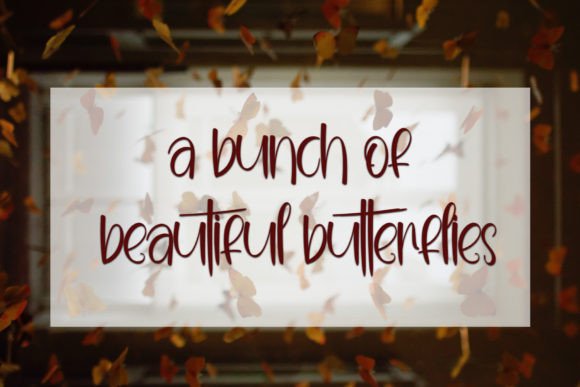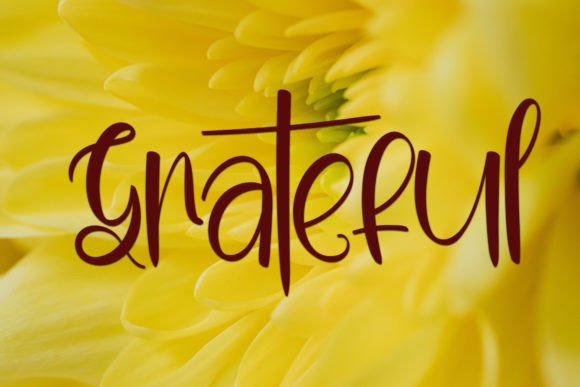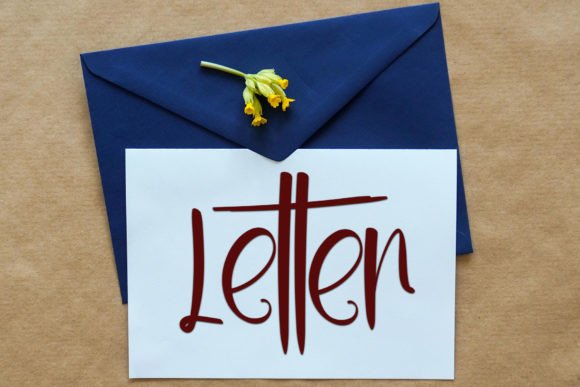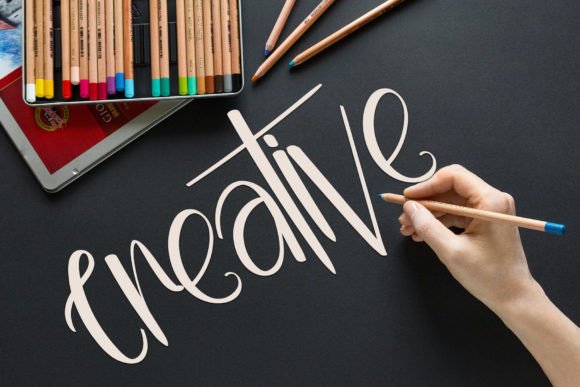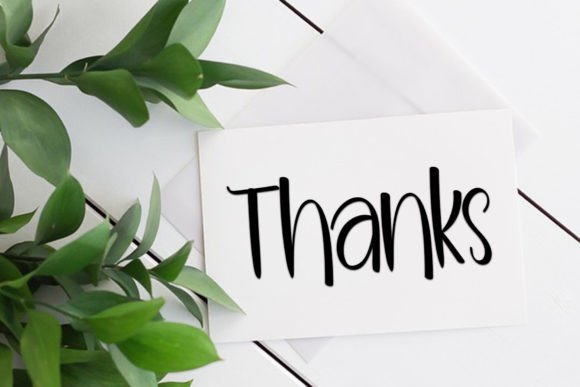
Introducing Butterfly Font: Elevate Your Designs with Elegance
Are you on the hunt for a font that adds a touch of sophistication and whimsy to your projects? Look no further than the Butterfly Font, a stunning handwritten font that is sure to capture your heart. With its elegant touch and incredibly distinct style, this font is perfect for designers and crafters looking to create spectacular designs that stand out from the crowd.
The Beauty of Butterfly Font
Butterfly Font is a neat and beautiful handwritten font that boasts an elegant touch, making it perfect for a wide range of projects. Whether you’re working on a logo, branding materials, or creative crafts, this font is sure to add a touch of sophistication and whimsy. The font’s unique and timeless style is sure to fall in love with, and its versatility makes it an excellent choice for designers and crafters alike.
Key Features of Butterfly Font
- Elegant Touch: Butterfly Font features an elegant touch that adds a level of sophistication to your designs.
- Handwritten Style: This font boasts a beautiful handwritten style that is perfect for creating unique and personalized designs.
- Distinct and Timeless: The font’s incredibly distinct and timeless style makes it perfect for creating designs that stand out from the crowd.
- Versatile: Butterfly Font is versatile and can be used for a wide range of projects, from logos and branding materials to creative crafts.
Butterfly Font is perfect for designers and crafters who are looking to add a touch of elegance and whimsy to their projects. Whether you’re working on a professional project or a personal craft, this font is sure to help you create spectacular designs that showcase your creativity and style.
Tips for Using Butterfly Font
Here are a few tips for using Butterfly Font to create stunning designs:
- Pair with Other Fonts: Experiment with pairing Butterfly Font with other fonts to create a unique and visually appealing design.
- Use for Headings and Titles: Use Butterfly Font for headings and titles to add a touch of elegance and sophistication to your designs.
- Add a Personal Touch: Use Butterfly Font to add a personal touch to your designs, making them perfect for creative crafts and personal projects.
In conclusion, Butterfly Font is a stunning handwritten font that is perfect for designers and crafters looking to add a touch of elegance and whimsy to their projects. With its elegant touch, incredibly distinct style, and versatility, this font is sure to help you create spectacular designs that stand out from the crowd. So why wait? Fall in love with Butterfly Font and start creating stunning designs today!
- What is Butterfly Font? Butterfly Font is a neat and beautiful handwritten font that boasts an elegant touch, perfect for a wide range of projects.